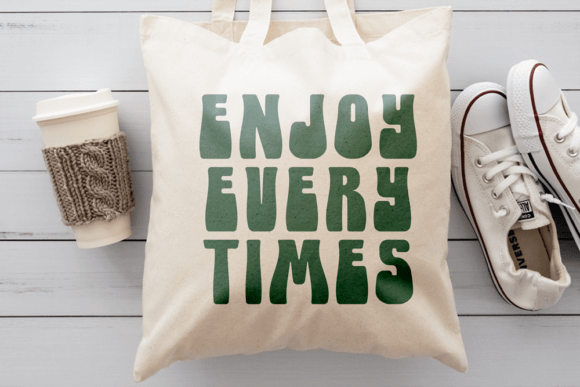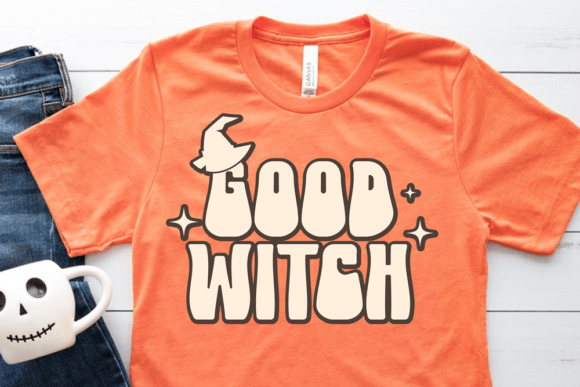
Fall Vibes Font
Fall Vibes Groovy is a cool retro duo font (display and monoline script). It is perfect for any hippie design that requires a groovy look and it’s guaranteed to make an impact.